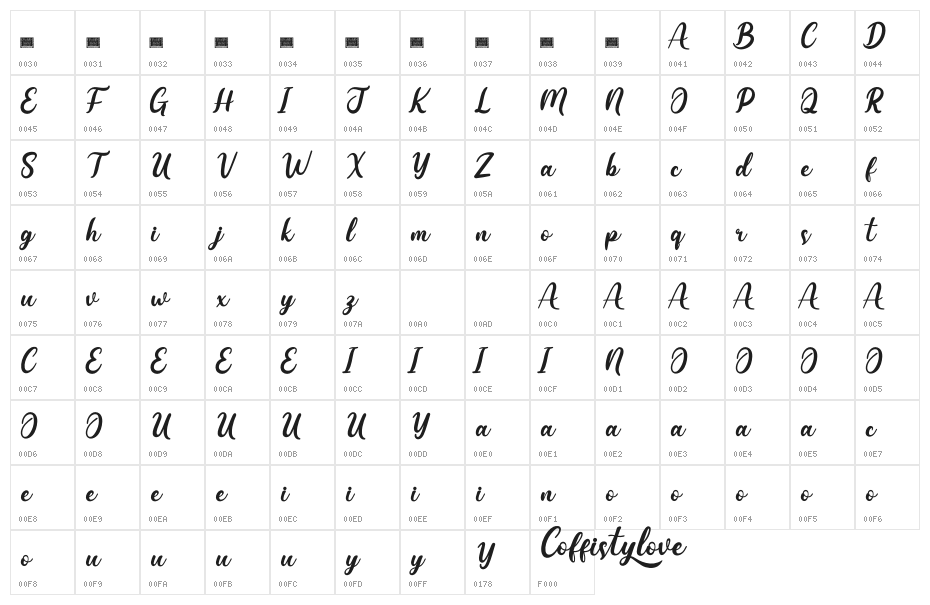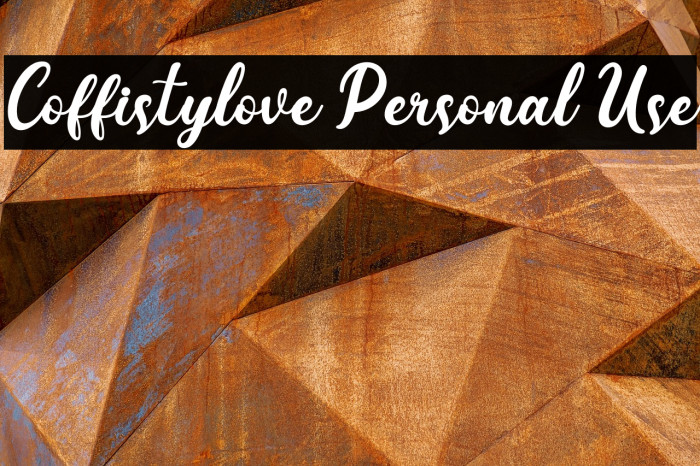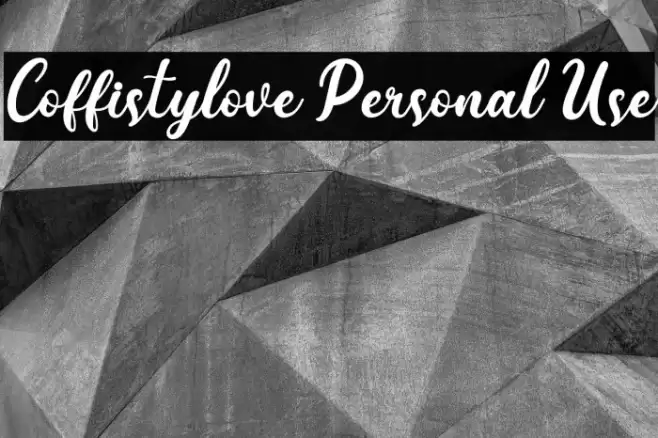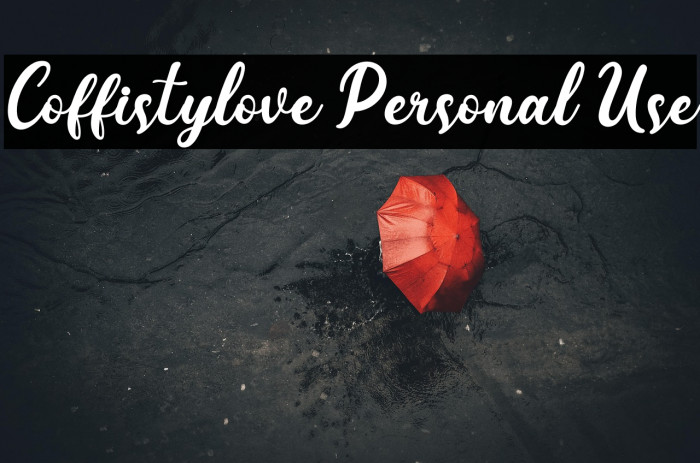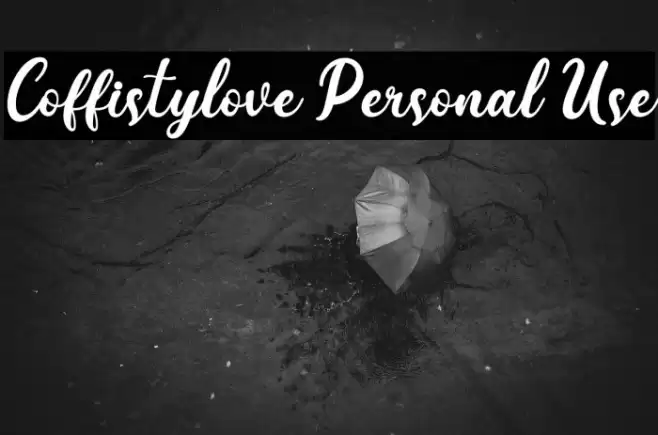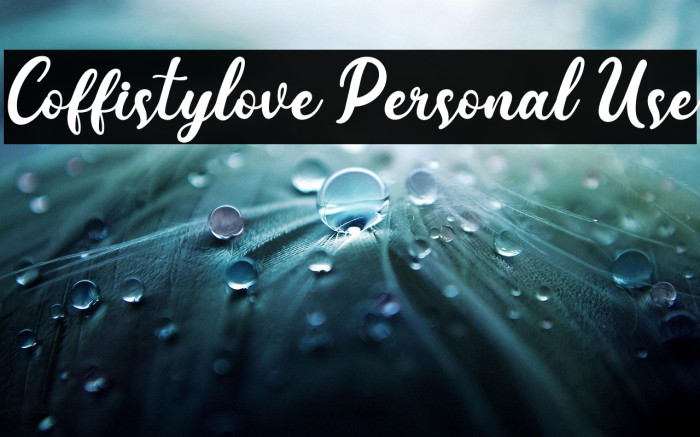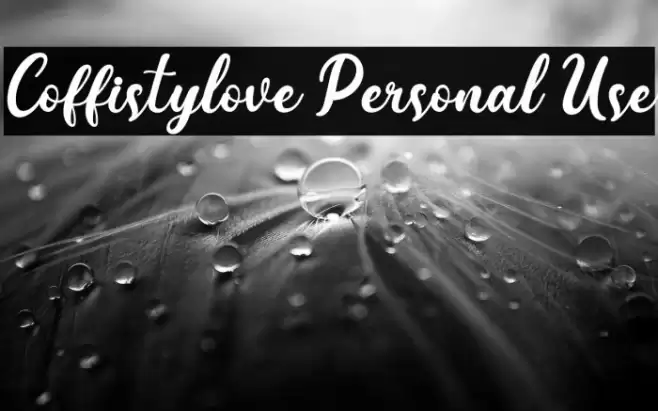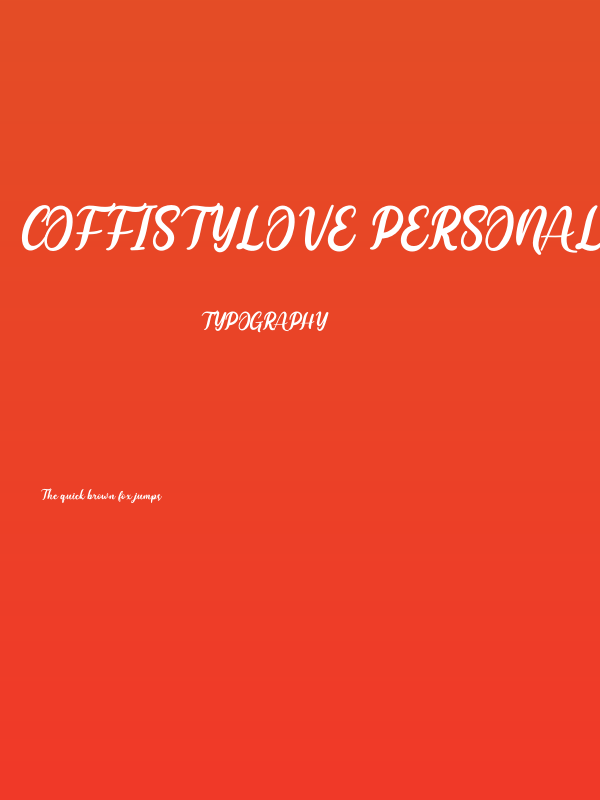
Coffistylove Personal Use Font
Coffistylove Personal Use Description
This font exhibits a flowing, cursive style with elegant, sweeping strokes that give it a handwritten appearance. The uppercase letters are bold and slightly slanted, adding a dynamic feel, while the lowercase letters maintain a consistent flow, enhancing readability. The font's design is characterized by smooth curves and a moderate contrast between thick and thin strokes, providing a balanced and harmonious look. It is well-suited for creative and artistic projects, where a personal touch is desired. The overall aesthetic is both modern and classic, making it versatile for various design needs.
| Overall Style | Modern, Classic |
| Proposed Projects | Ideal for wedding invitations, greeting cards, branding, and social media graphics. |